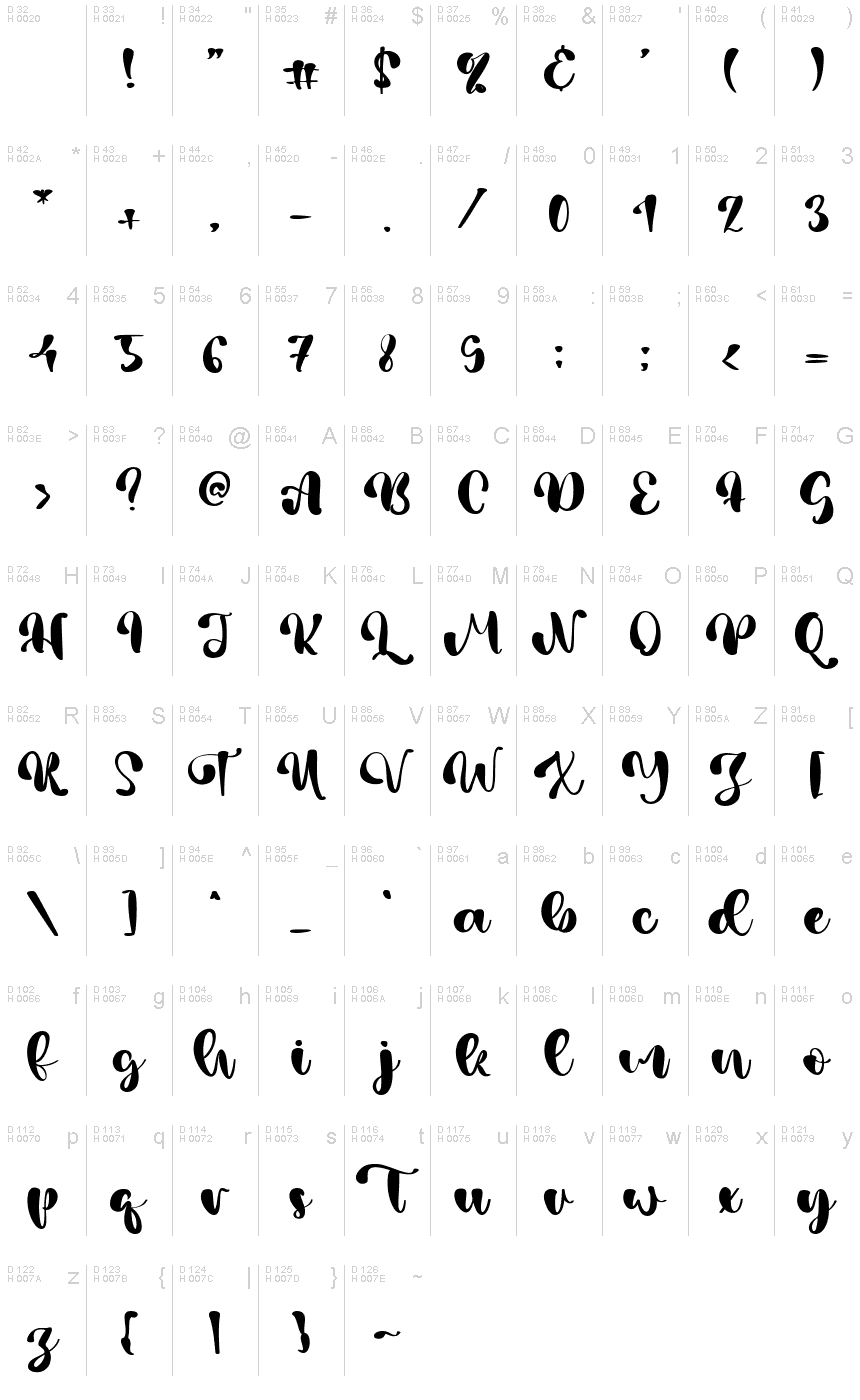
Introducing Pierre, the extra-bold smooth brush font by VZtype. This font boasts a unique, handwritten style that adds a touch of personality to any project. Its bold strokes and fluid lines make it perfect for creating eye-catching headings, titles, and logos. Pierre is suitable for a wide range of projects including branding materials, packaging designs, social media graphics, posters, and more. Whether you're looking to add a playful touch to your work or create something bold and impactful, Pierre is the perfect choice. Get creative with this versatile font today!